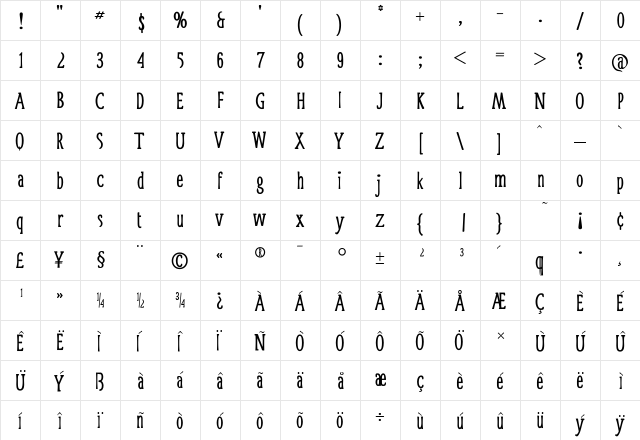
Cuty Regular
Design Context for Cuty Typeface
Cuty takes a measured approach to typography — its balanced proportions and neutral character make it a reliable workhorse for both digital and print work.
Pro Tip: Pair Cuty with a font of contrasting weight or personality to build a more expressive typographic hierarchy.